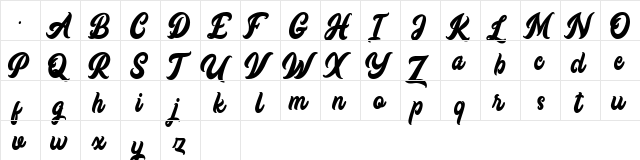
Copacetic Regular
Design Context for Copacetic Typeface
Copacetic is a composed and adaptable typeface that performs quietly and consistently across a wide range of design contexts.